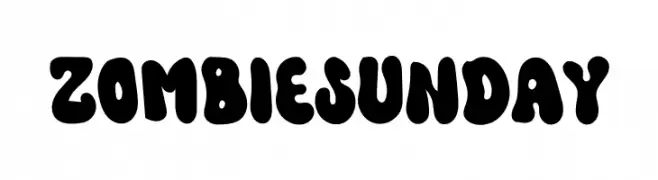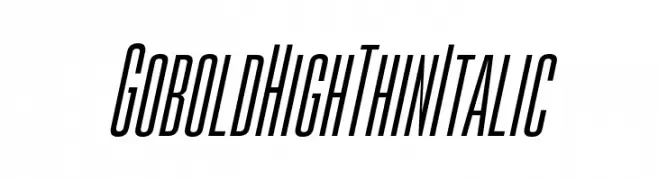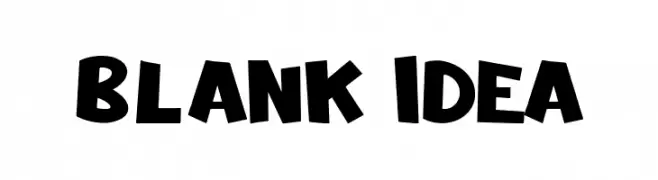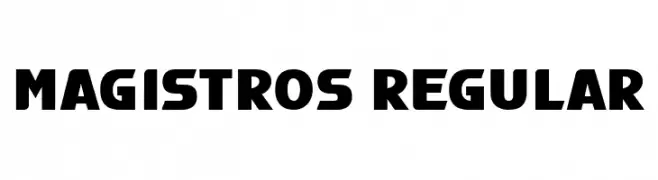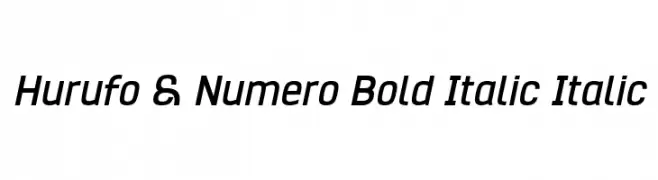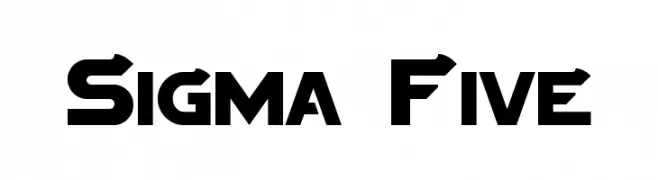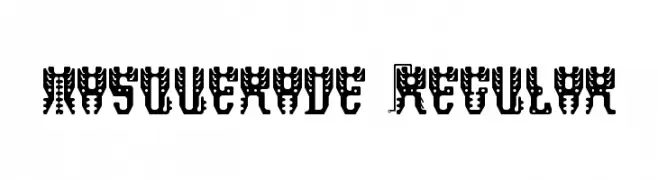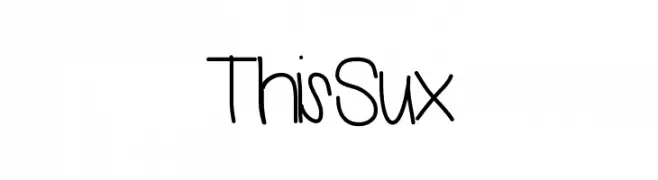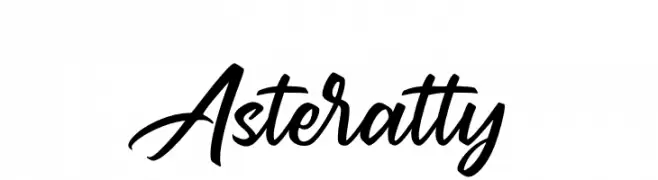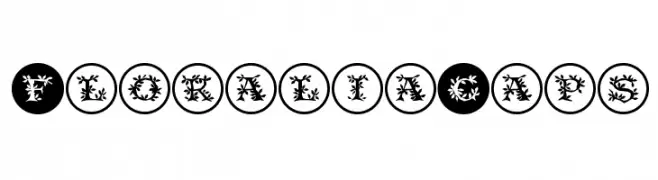
A slender, condensed font with thin, consistent strokes and a minimalistic design.
A bold, playful font with rounded, bubbly characters and a retro vibe.
A sleek, modern, and italicized font with elongated, condensed characters.
A bold, playful font with a cartoonish and energetic style.
A bold, modern font with a geometric and slightly condensed style.
A bold, italicized font with a modern and dynamic style.
A bold, geometric font with a futuristic and modern style.
A playful, handwritten font with a whimsical and casual style.
A dynamic and expressive script font with fluid, cursive strokes.
An ornate, floral-themed decorative font with intricate details.
A bold, playful font with rounded strokes and a whimsical, vintage-modern style.
A clean, modern sans-serif font with geometric influences and uniform stroke widths.
A bold, 3D comic-style font with thick outlines and geometric shapes.
A bold, condensed, and oblique font with a modern and dynamic style.
Playful, bold handwritten font.
A bold, geometric font with a digital, pixelated style.
A modern, elegant script font with a handwritten style.
Abstract, face-themed decorative font with geometric shapes.
Elegant decorative script font.
A bold, modern font with clean geometric shapes and uniform strokes.
A bold, textured font with a halftone effect, ideal for creative projects.
A bold, wide, expanded font with extra black weight and high contrast.
A dynamic and flowing script font with elegant cursive letterforms.
A bold, decorative font with high contrast and elegant flourishes.
A bold, handwritten font with a playful and casual style.
A bold, hand-drawn font with a textured, woodblock-inspired style.